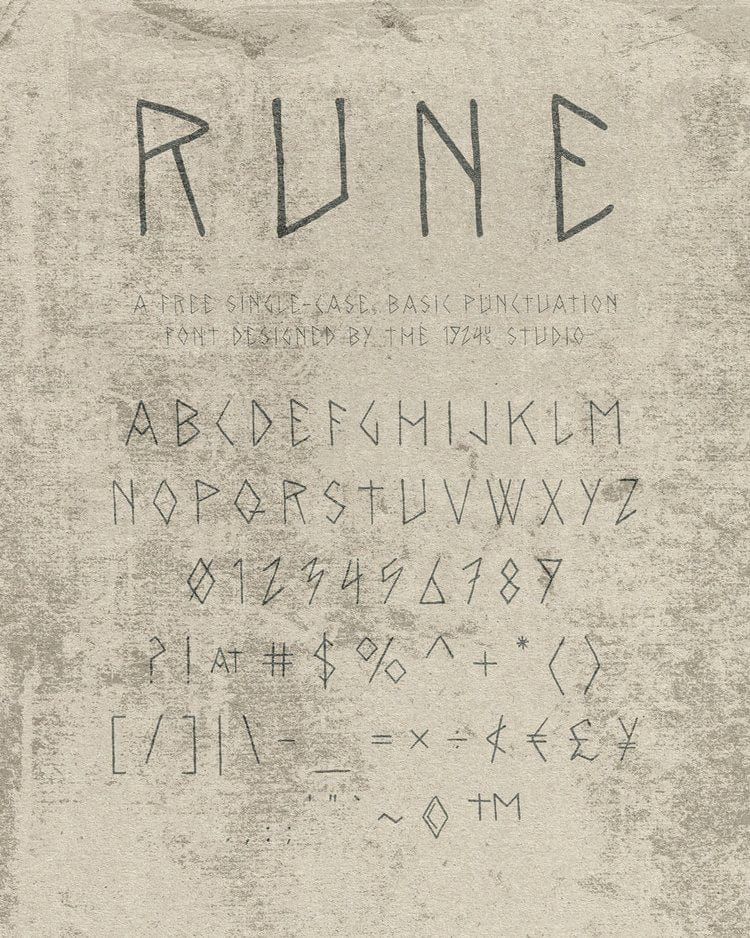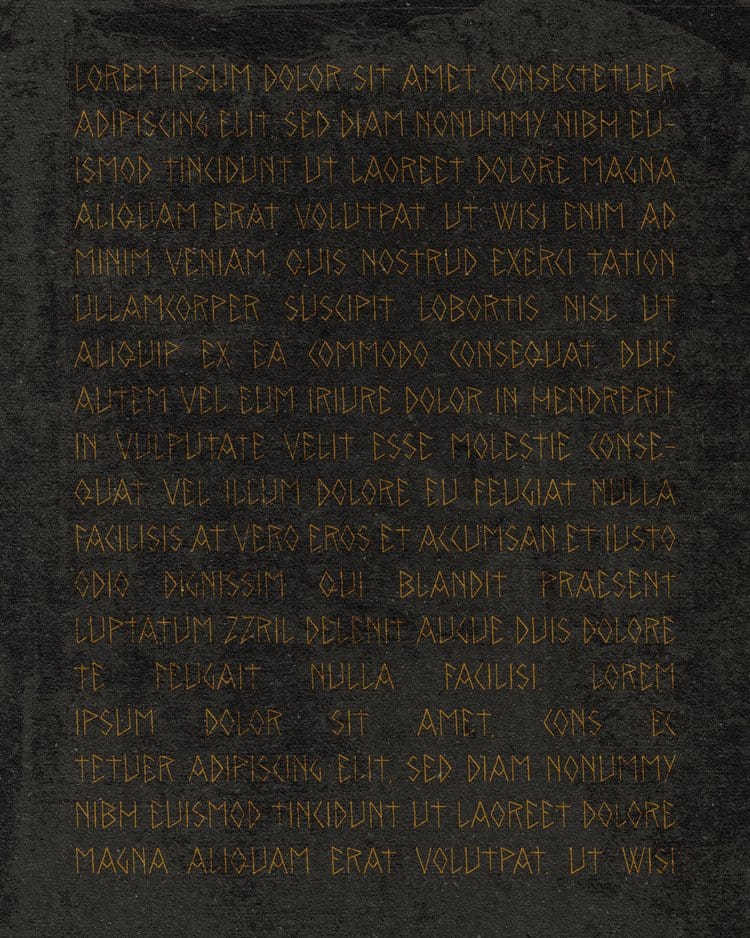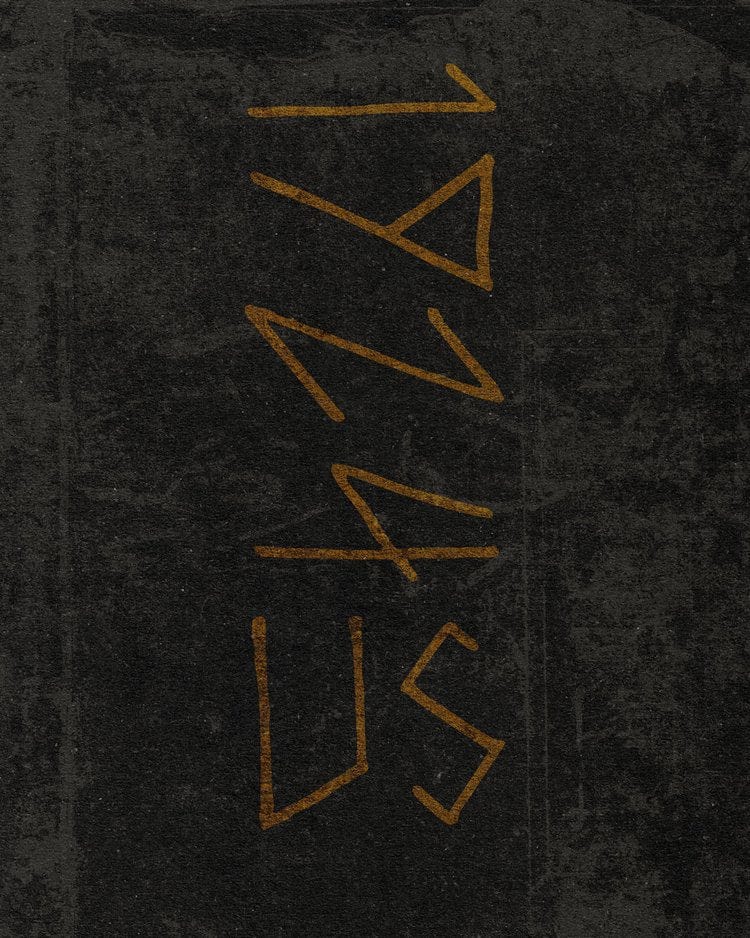
Rune Font by 1924us
A primitive, simple and yet highly impactful font, the inspiration behind this one is pretty easy to guess!! We’ve referenced the aesthetic cues of ancient alphabets from some of the oldest runic languages and adapted them to fit a traditional Latin character set. This is a powerful display font that is sure to turn heads, no matter the application!!
Designed and hand-drawn by the 1924us Studio.